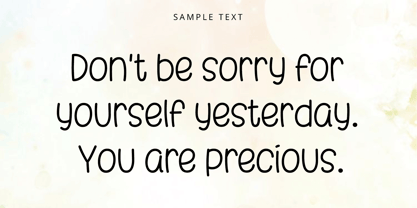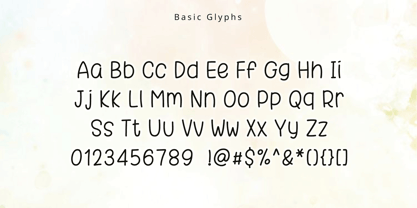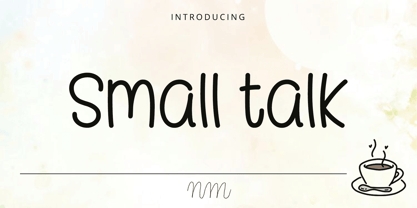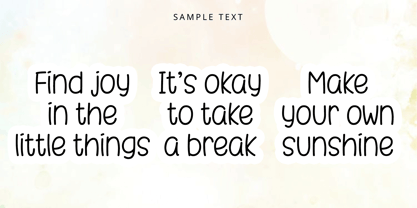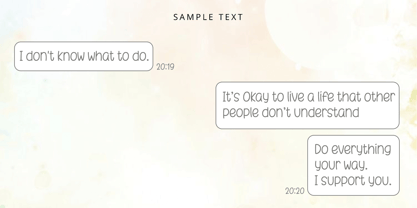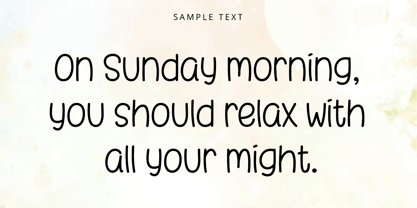
Nm Smalltalk
by NM Fonts
The Nm Smalltalk Font Family was designed by Minji Noh and published by NM Fonts. Nm Smalltalk contains 1 styles. More about this family
Nm Smalltalk is a casual and friendly handwritten font inspired by the little conversations that fill our everyday lives. Its natural strokes and relaxed letterforms create a warm, easygoing feel, like a quick note or a message shared with someone close.
Perfect for social media graphics, digital planners, notes, stickers, greeting cards, lifestyle branding, packaging, and everyday creative projects, Nm Smalltalk adds a personal handwritten touch while keeping your text clear and approachable.
Whether used digitally or in print, Nm Smalltalk brings a light and comfortable mood to your words, making it a natural choice for designs that feel friendly, personal, and effortlessly charming.
Designers: Minji Noh
Foundry: NM Fonts